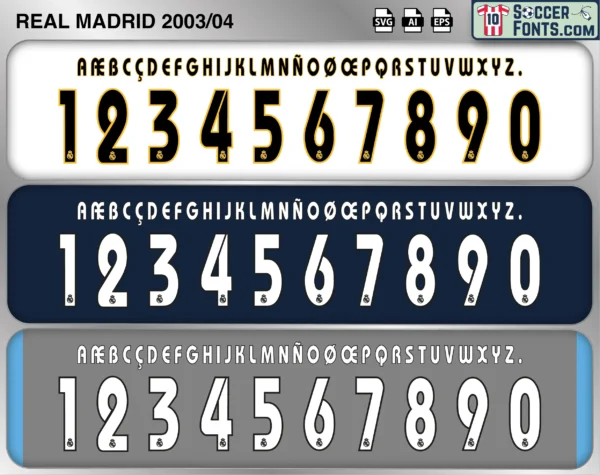
Real Madrid 2003-04 Font
The Real Madrid 2003-04 font is an editable soccer jersey lettering design in vector format inspired by the Real Madrid kit style used during the 2003-04 football season. This football font artwork is prepared for football shirt recreations, custom jersey projects, football kit mockups and sports graphic design workflows.
The 2003-04 season was one of the most closely watched campaigns of the Galácticos era as Real Madrid continued to assemble a squad filled with global superstars. Following the arrival of David Beckham from Manchester United, the team featured Zinedine Zidane, Ronaldo, Raúl, Luís Figo, Roberto Carlos, Iker Casillas and Beckham himself. Managed by Carlos Queiroz, Real Madrid entered the season with ambitions of winning every major competition and attracted worldwide attention due to the extraordinary talent available throughout the squad. The club began the campaign strongly and spent much of the season competing for honors in both Spain and Europe.
The Real Madrid 2003-04 font became associated with a dramatic and often unpredictable season. Real Madrid won the Supercopa de España and remained in contention for the La Liga title, Copa del Rey and UEFA Champions League deep into the campaign. However, a difficult final stretch saw the team fall short in all three major competitions despite its impressive roster. The season remains memorable because of Beckham’s debut year in Spain and the continued prominence of the Galácticos project at its commercial and sporting peak. Real Madrid shirts from the 2003-04 season remain highly collectible among football shirt enthusiasts because of their connection to one of the most famous squads ever assembled and an era that helped transform football into a truly global spectacle. The Real Madrid 2003-04 font reflects a fascinating chapter in the history of modern football.